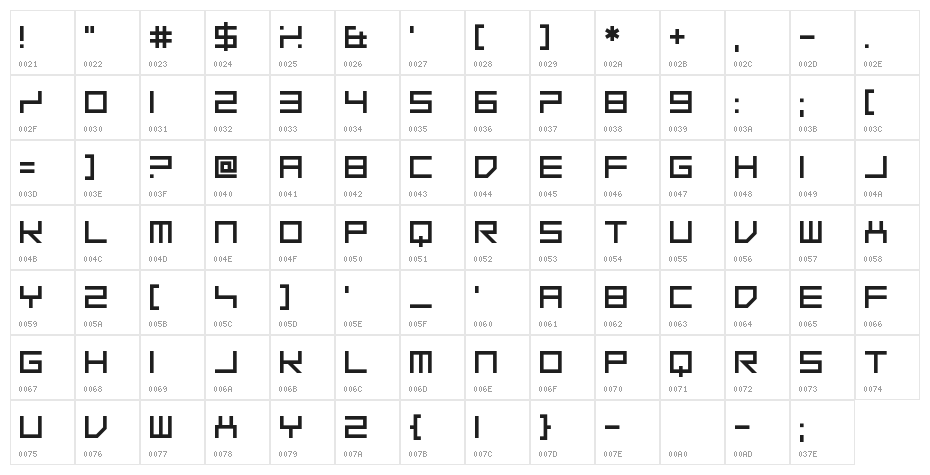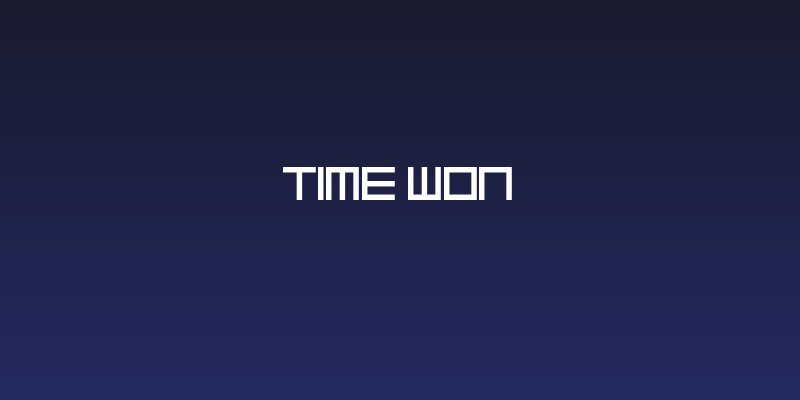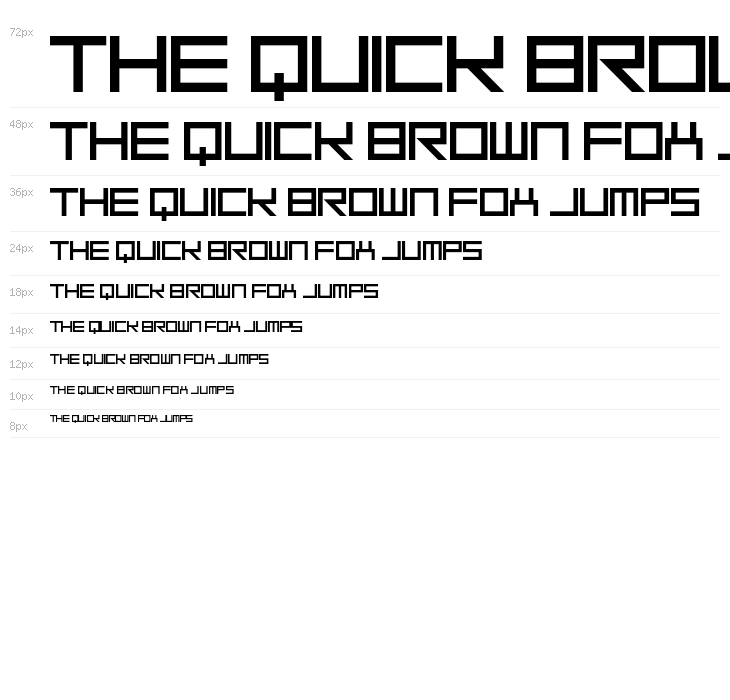
Time Won Font
Time Won Description
This font features a geometric, blocky design with a futuristic feel. The characters are constructed with straight lines and right angles, giving it a digital, pixelated appearance. The uppercase letters are uniform in height, while the lowercase letters maintain the same structural style, offering a cohesive look. Numbers and special characters follow the same geometric pattern, ensuring consistency across all glyphs. The font's bold and angular nature makes it stand out, ideal for projects that require a modern and tech-inspired aesthetic.
| Proposed Projects | Ideal for technology branding, video game interfaces, sci-fi themed projects, and digital art. |